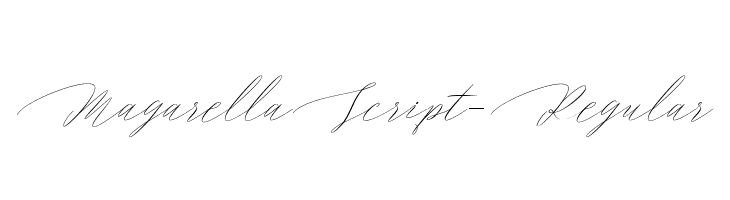
A graceful and elegant script font with flowing, interconnected characters.
An elegant, cursive font with ornate swirls and a classic calligraphic style.
A decorative cursive font with elegant loops and flourishes.
An elegant, flowing script font with decorative swashes and a sophisticated style.